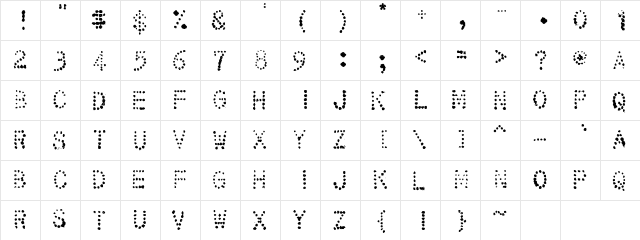
32 pages Regular
| Designer | Darko Stanicic |
Design Context for 32 pages Typeface
32 pages takes a measured approach to typography — its balanced proportions and neutral character make it a reliable workhorse for both digital and print work.